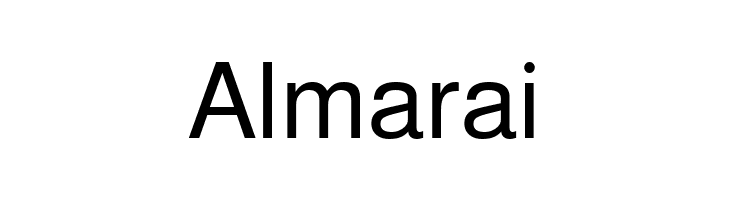
• Almarai फ़ॉन्ट
A modern, clean sans-serif typeface with balanced proportions and consistent stroke width.
• Almarai Bold फ़ॉन्ट
A bold, modern sans-serif font with clean lines and strong readability.
• Almarai Extrabold फ़ॉन्ट
A bold, modern sans-serif typeface with strong visual impact.
• Almarai Light फ़ॉन्ट
A modern, light sans-serif font with clean lines and balanced spacing.